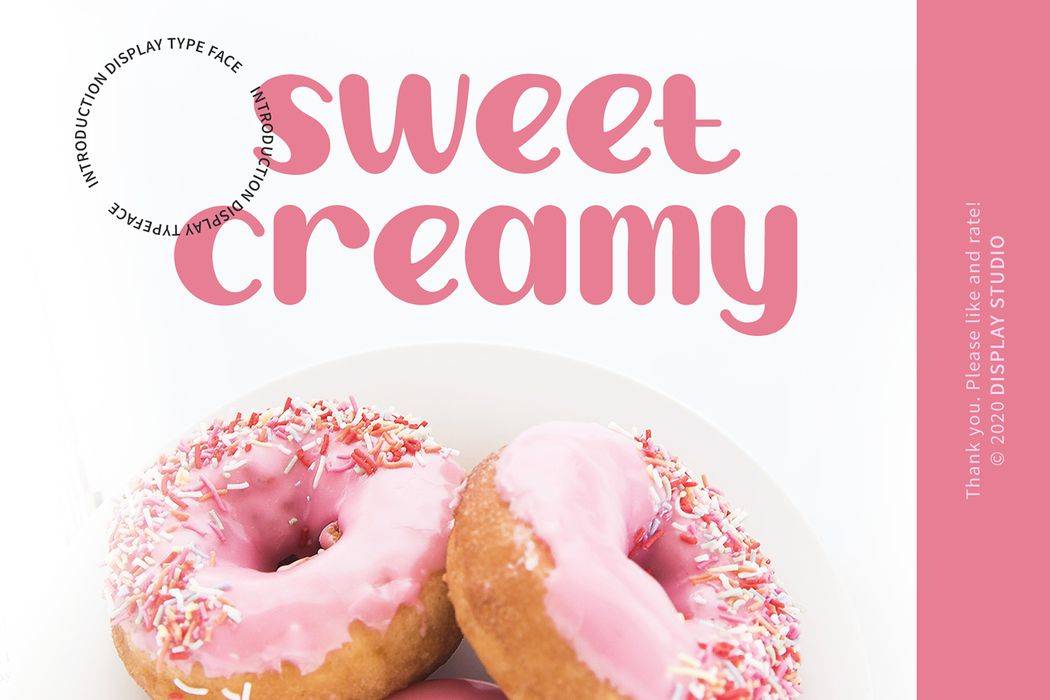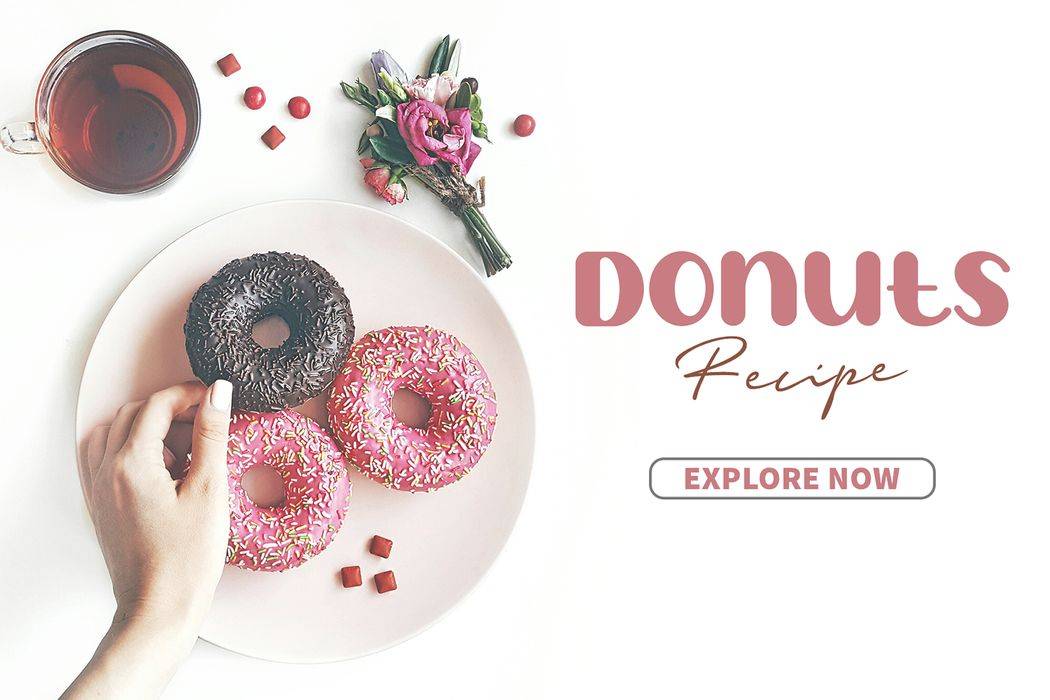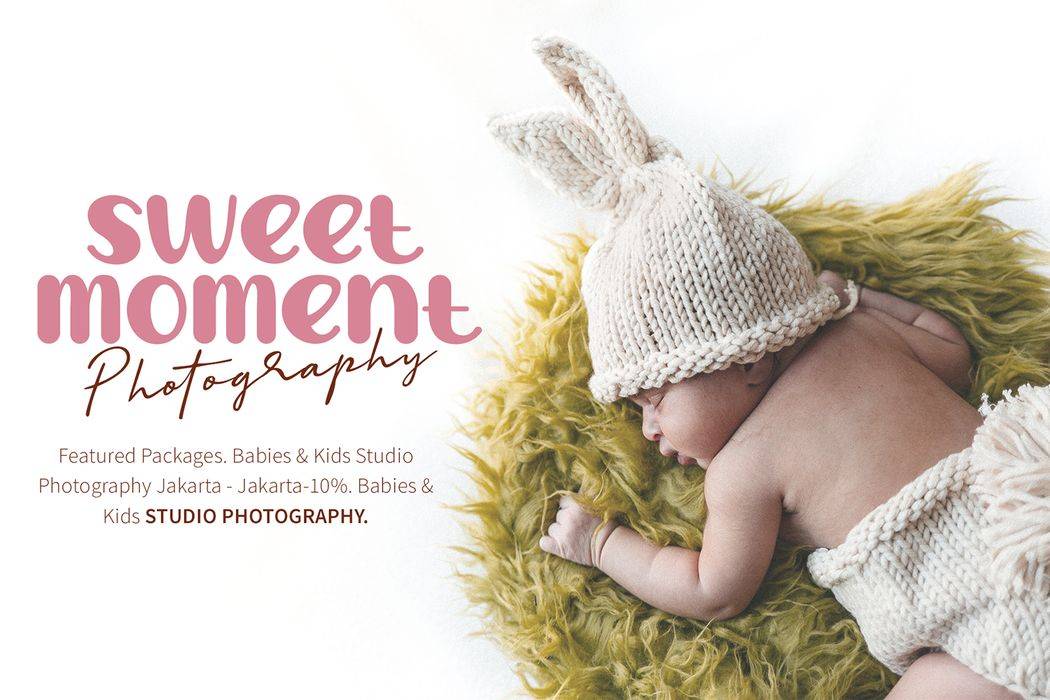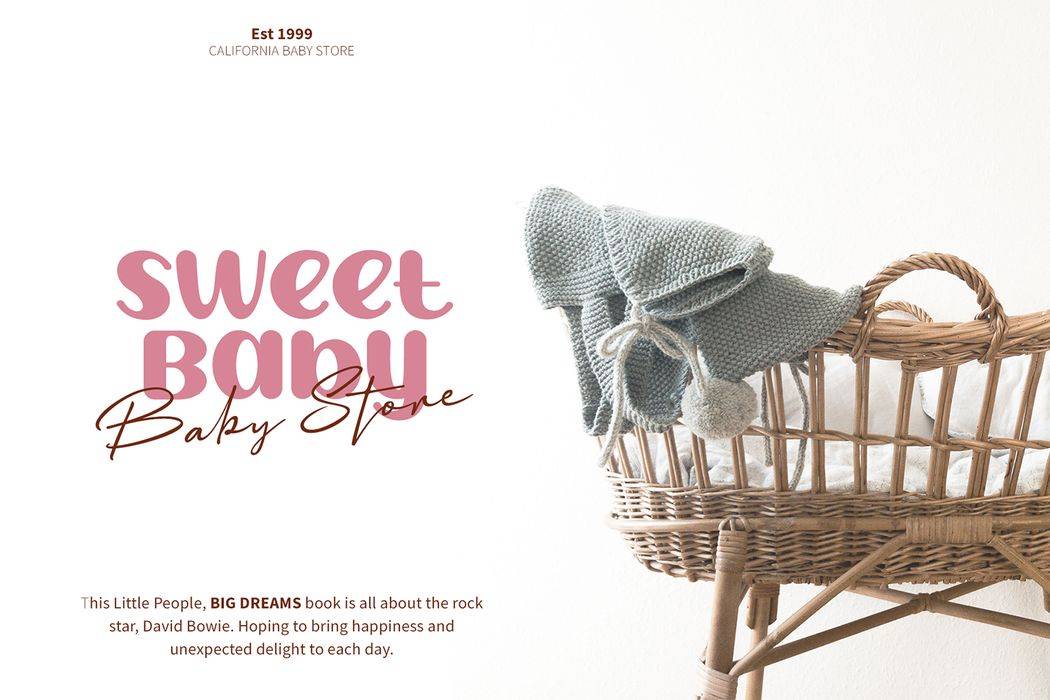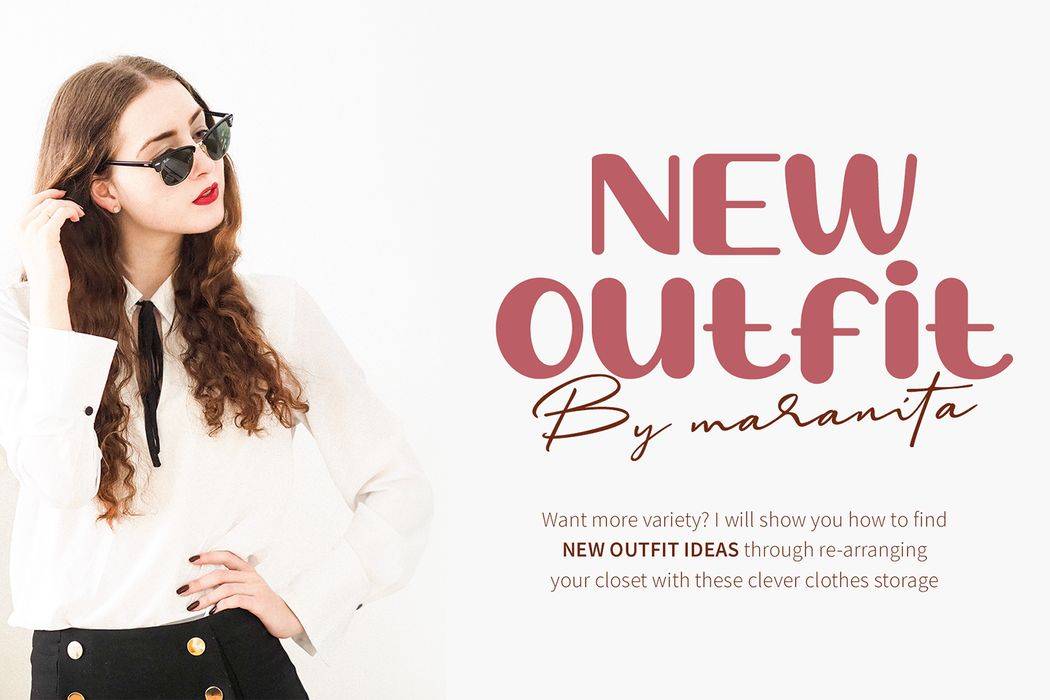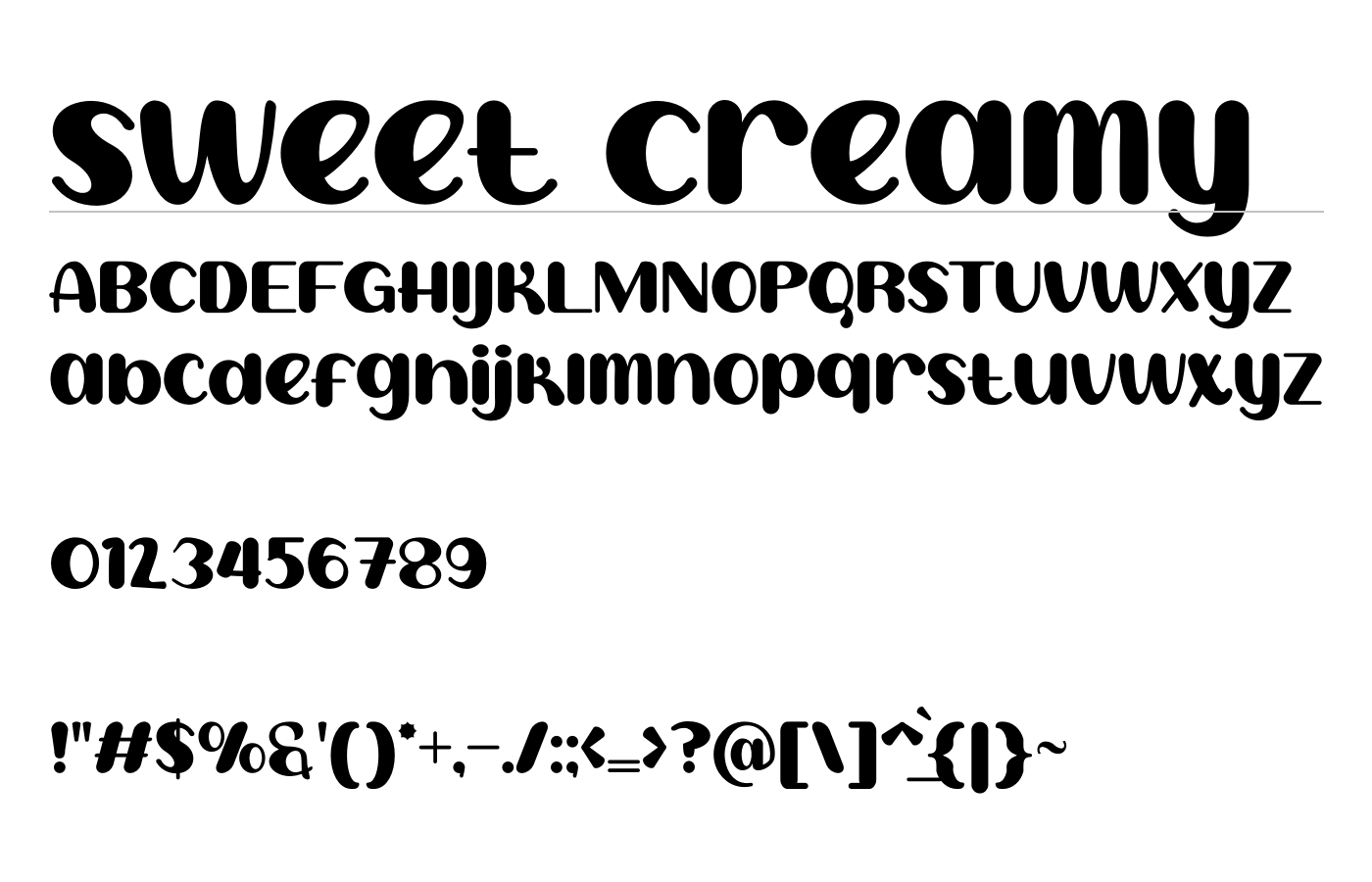
Sweet Creamy Font is a playful and rounded sans serif typeface with a bold weight and smooth, soft strokes that create a friendly, approachable vibe. Its wide letterforms and distinctive quirky details make it ideal for fun, casual branding, children's products, and creative packaging, bringing a cheerful and inviting personality to any design. This font works great for headlines and logos where a warm, informal style is desired.
Sweet Creamy Font
About Sweet Creamy Font
| Font family | Sweet Creamy Font |